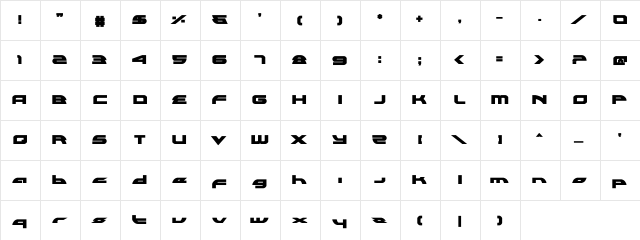
Alexis Lower Case Bold Lower Case Bold
Design Context for Alexis Lower Case Bold Typeface
Alexis Lower Case Bold is a composed and adaptable typeface that performs quietly and consistently across a wide range of design contexts. Its bold stroke weight gives it real presence on the page.